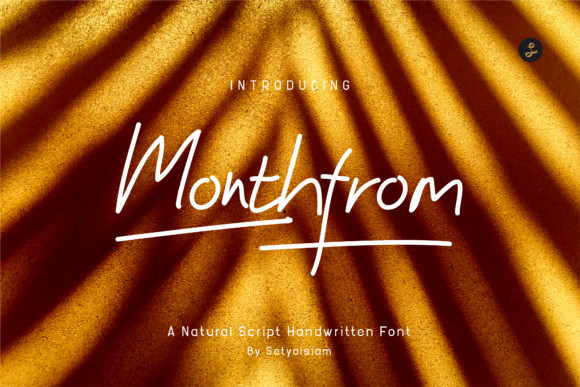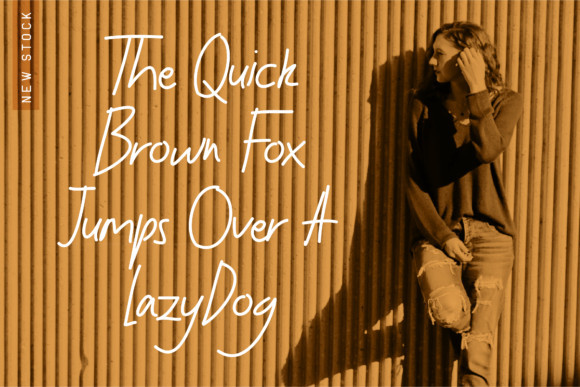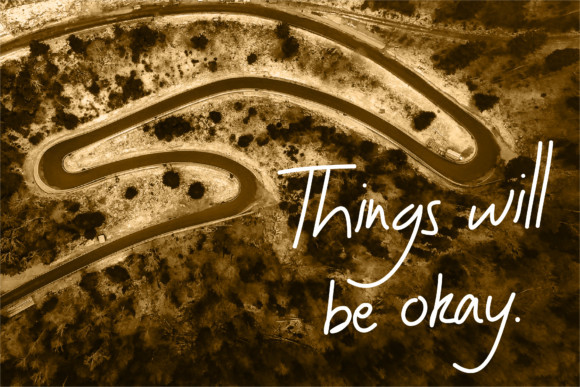
Monthfrom Font
Monthfrom is a fun handwritten font. This font is the ideal font for adding an adventurous and authentic feel to your next design idea!